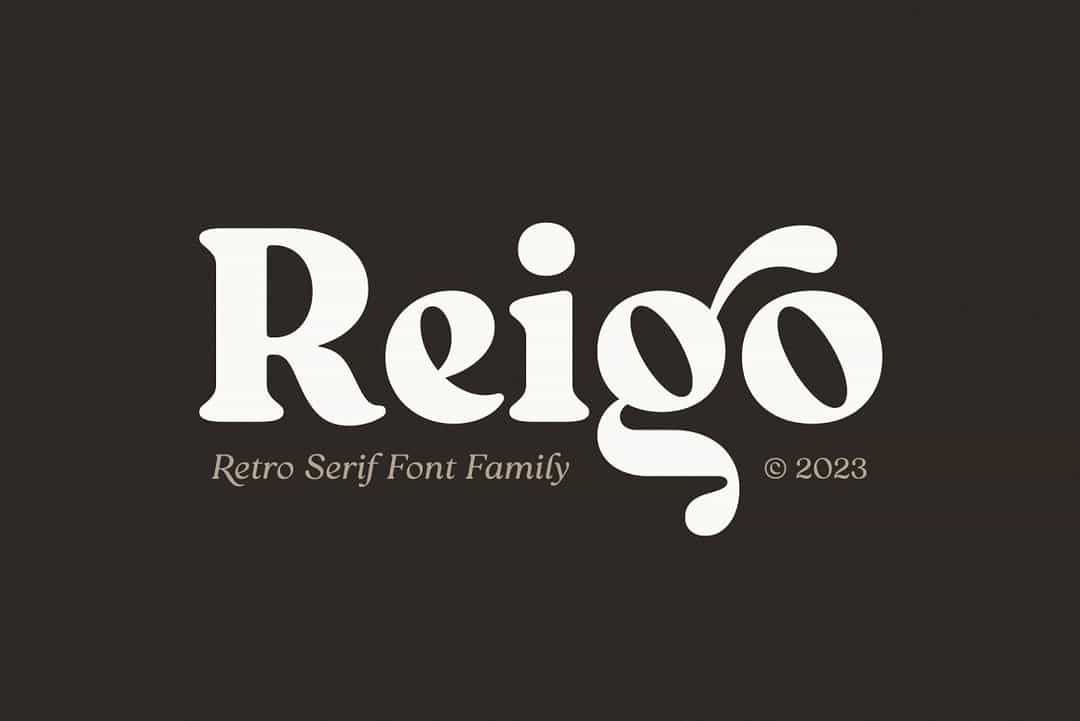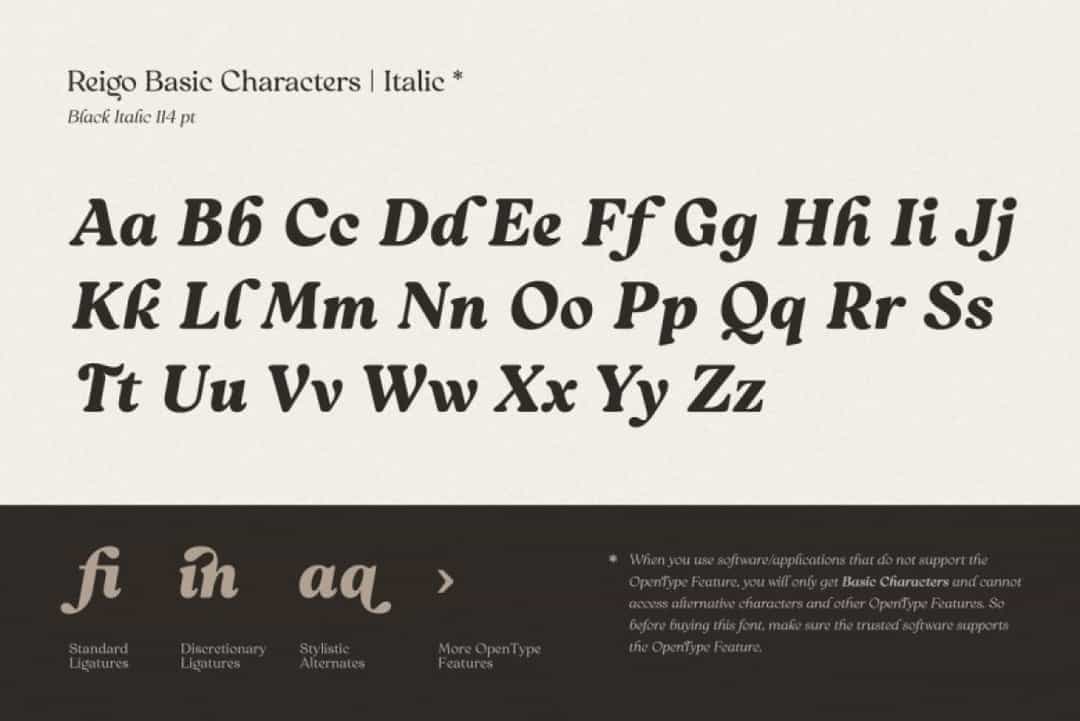
Reigo is an old-fashioned serif font featuring soft curves for an organic, sophisticated aesthetic. Reigo includes seven uprights and seven matching italics which include OpenType features like Ligatures and Disresponsible Ligatures as well as Stylistic Alternates plus other OpenType features – it also comes equipped with PUA encoded support!